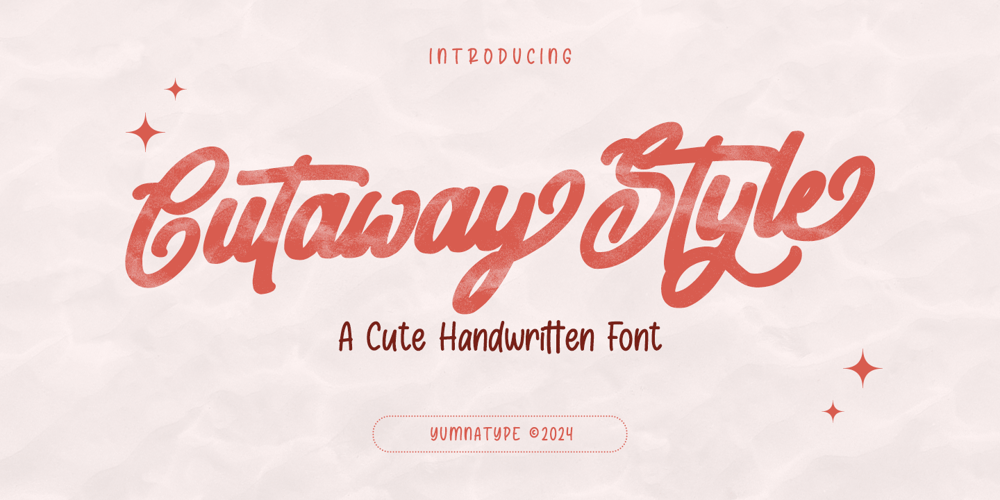
Cutaway Style
Cutaway Style font
Cutaway Style Font Family was designed by Donis Miftahudin and published by Yumna Type. Cutaway Style contains 1 styles and family package options. Cutaway Style is a charming script font that effortlessly captures the elegance of handwritten lettering. The fairly thick weight of the font adds a comforting solidity, ensuring that every word feels grounded and substantial.One of the most enchanting characteristics of Cutaway Style is its subtle detailing, including swinging ends on select letters. These delicate flourishes add a touch of whimsy and personality to the font. These swinging ends infuse the text with a sense of movement, creating an inviting rhythm that draws the reader in.Despite its handwritten appearance, Cutaway Style maintains excellent legibility, thanks to its carefully crafted design and subtle contrast. The contrast is not too visible, ensuring that the text remains easy on the eyes and suitable for extended reading. In addition, enjoy the features here.Features: Ligatures Stylistic Sets Multilingual Supports PUA Encoded Numerals and Punctuations Cutaway Style fits in headlines, logos, posters, flyers, branding materials, greeting cards, print media, editorial layouts, and many more designs. Find out more ways to use this font by taking a look at the font preview.Thanks for purchasing our fonts. Hopefully, you have a great time using our font. Feel free to contact us anytime for further information or when you have trouble with the font. Thanks a lot and happy designing.